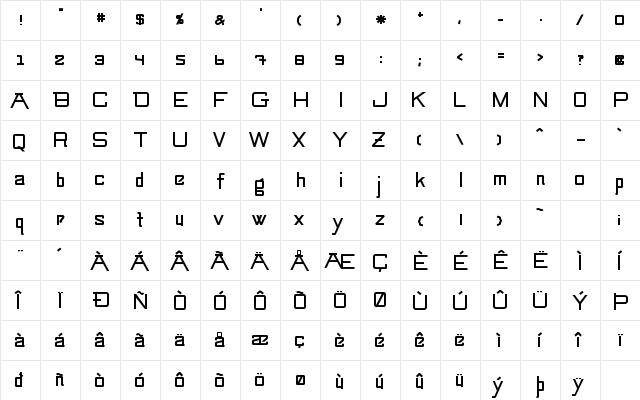
SwingarmYori-Medium Regular
Design Context for SwingarmYori-Medium Typeface
SwingarmYori-Medium has the no-nonsense character of military stencilling and tactical signage, projecting authority and directness.
A strong choice for security brands, outdoor gear, and high-stakes visual communication.
Font Pairing: Use alongside a condensed or geometric sans for supporting copy — keep the pairing bold, functional, and free of ornament.
Pro Tip: Try SwingarmYori-Medium in all-caps for the most authentic military signage feel. It pairs well with stark, minimal layouts and muted colour palettes.